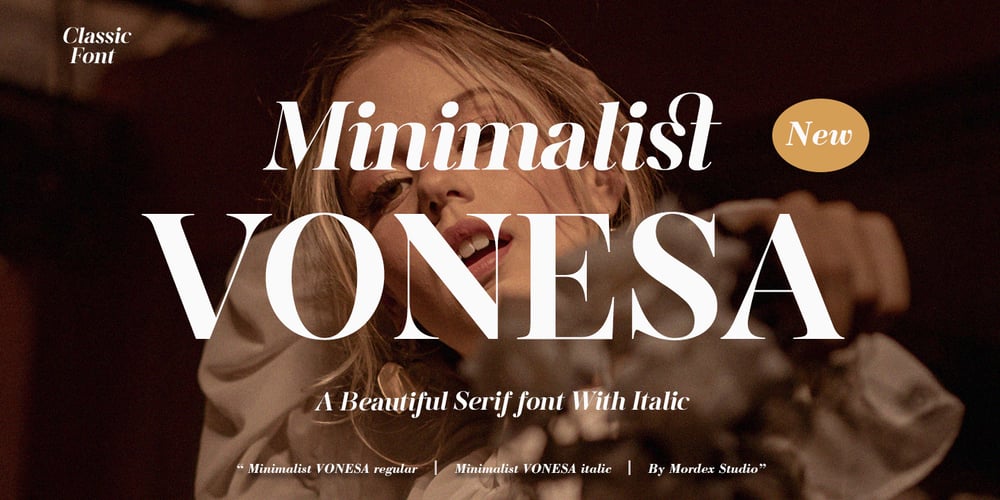
Minimalist Vonesa Font Family was designed by Teuku Hamzah and published by Mordex Studio. Minimalist Vonesa contains 2 styles and family package options. Introducing Minimalist VONESA – a new nostalgic serif revival that will blow your mind.I’ve started looking at classic serifs with a narrow 80’s & 90’s range, and wanted to make the perfect one for you too! VONESA Minimalist is a beautiful nostalgic upper and lower case typography that looks amazing in upper and lower case settings as Display, Logo and body text.One thing to note about VONESA Minimalist is that the letter spacing is intentionally set for clean readability if you want to use it for body types, so I recommend setting the spacing a bit tighter for display use (around -20 to -40 should be!). Thanks for watching, and come and say hello on Instagram!https://www.instagram.com/mordex.studio/ ~Mordex.Studio